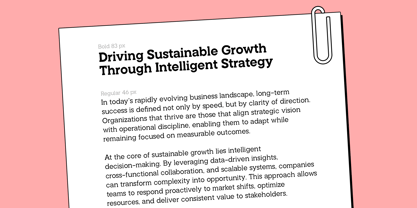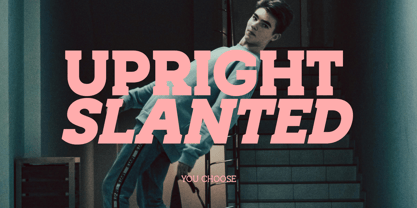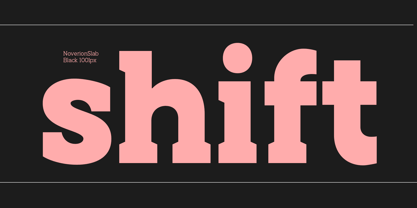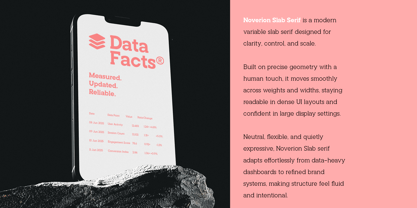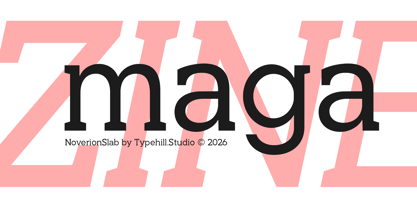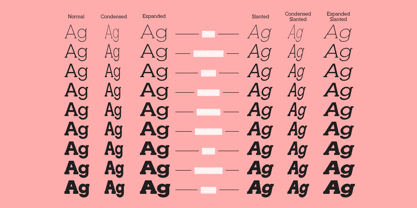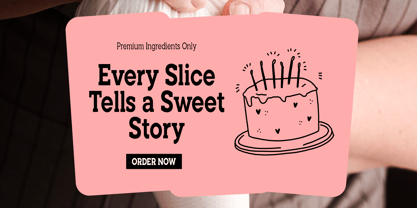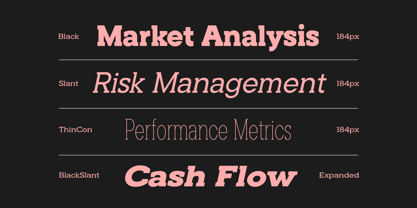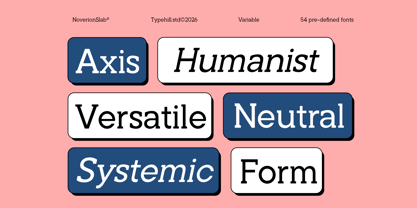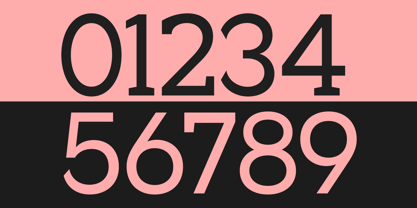
Noverion Slab
by Typehill Studio
The Noverion Slab Font Family was designed by Teuku Fahruddin and published by Typehill Studio. Noverion Slab contains 55 styles and family package options. More about this family
Noverion Slab is a contemporary slab serif type family designed to combine modern clarity with strong structural presence. Featuring solid slab serifs, balanced proportions, and clean construction, Noverion Slab delivers a confident typographic voice that works seamlessly across branding, editorial design, posters, and digital applications. The family consists of a comprehensive 54-style system, covering a wide range of weights with matching upright and italic variants. This extensive range allows designers to build clear visual hierarchy while maintaining consistency, rhythm, and expressive control throughout complex layouts. Each style is carefully crafted with attention to readability, weight balance, and visual stability, ensuring reliable performance in both print and screen environments. Noverion Slab Serif is an ideal choice for designers seeking a versatile modern slab serif type system—strong, flexible, and built for long-term design projects and bold visual identities.